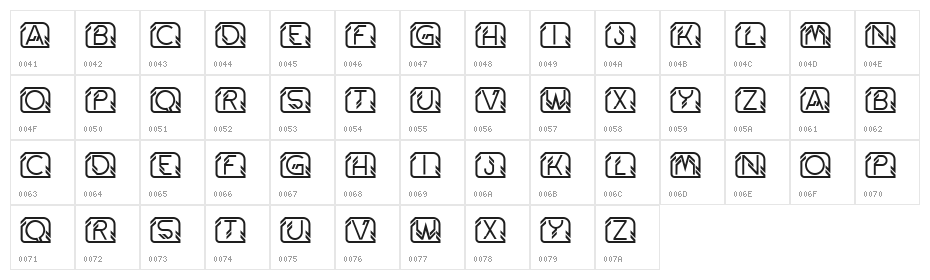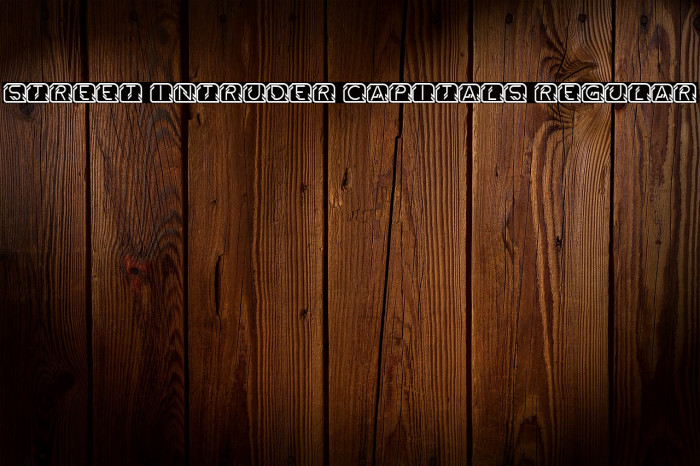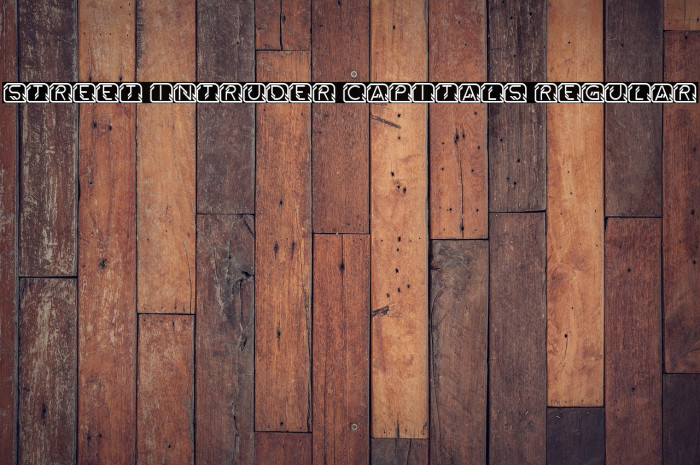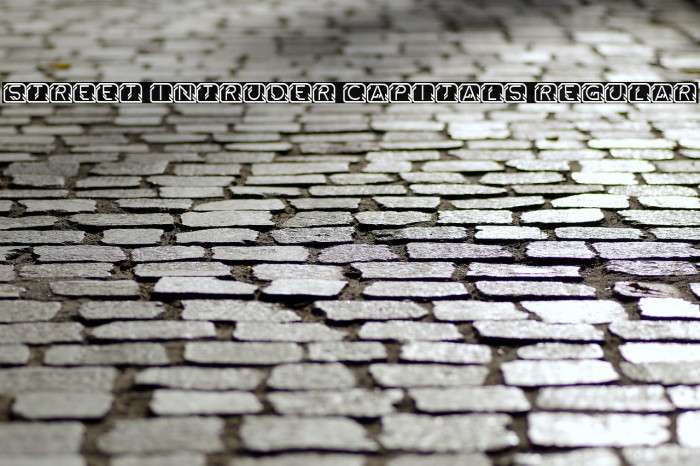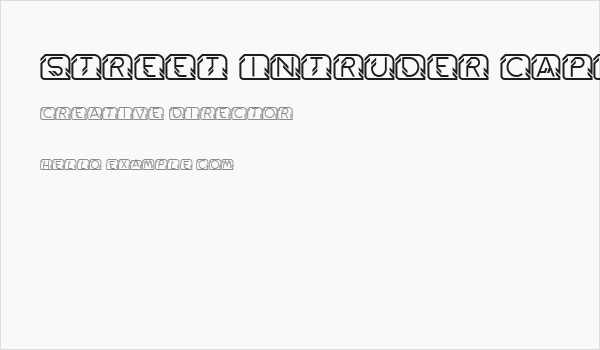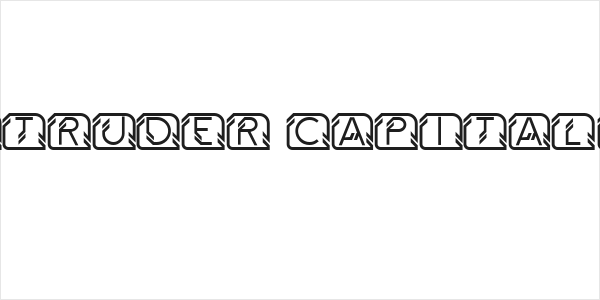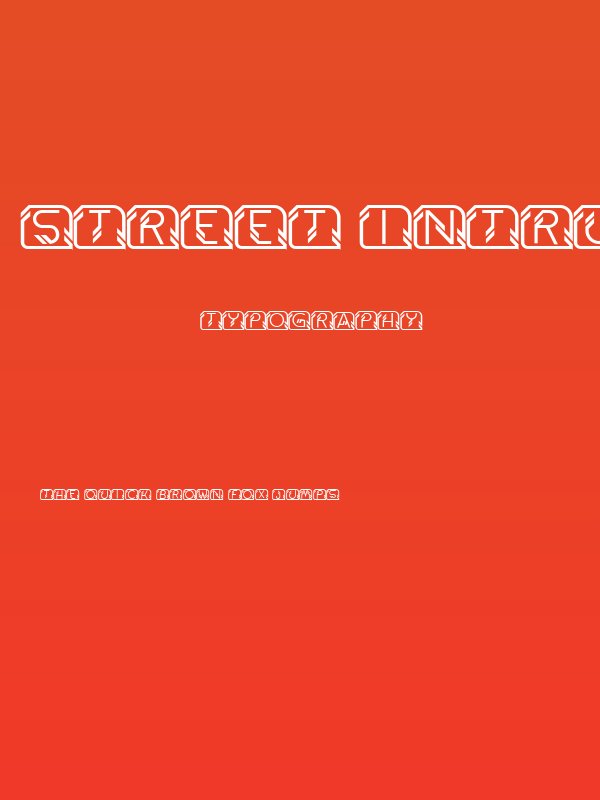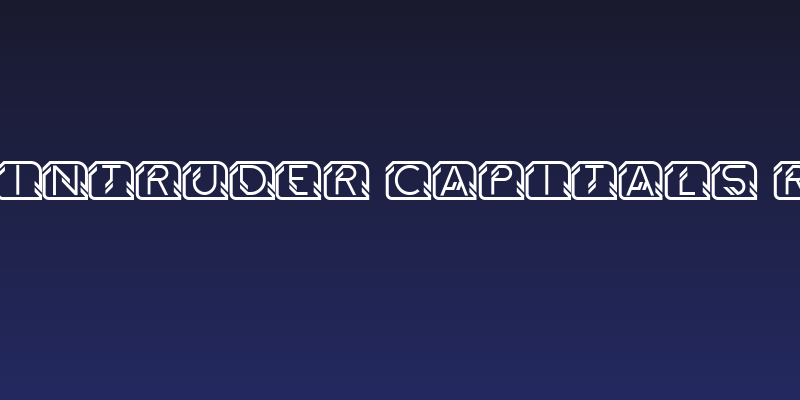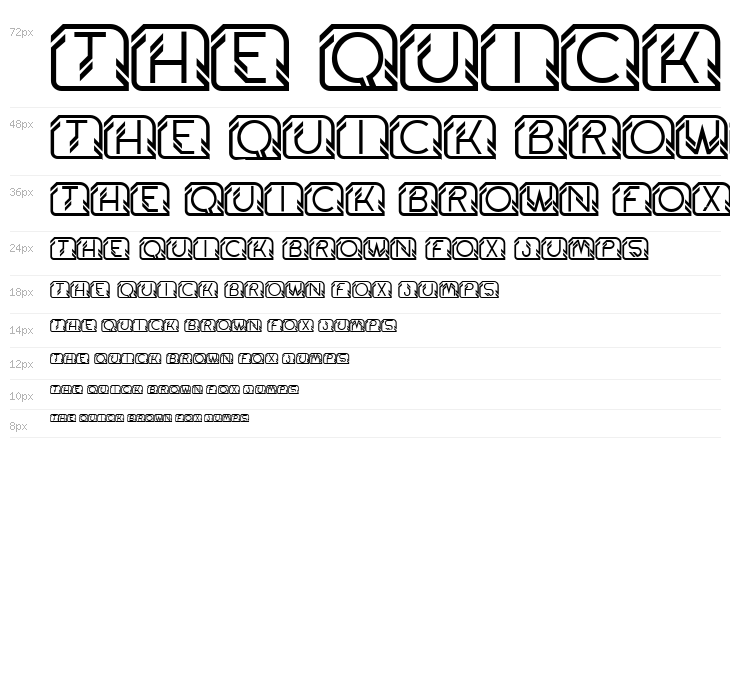
Street Intruder Capitals Regular Font
Street Intruder Capitals Regular Description
This font features a bold, geometric style with a distinct three-dimensional effect. Each character is enclosed within a blocky outline, giving it a strong, impactful presence. The design incorporates sharp angles and clean lines, creating a modern and edgy aesthetic. The font is highly decorative, making it ideal for attention-grabbing headlines or titles. Its unique structure and bold appearance make it stand out, while the consistent width of each character ensures readability. The font's style is reminiscent of urban or street art, adding a contemporary and artistic flair to any project.
| Proposed Projects | Ideal for street art-inspired designs, posters, album covers, and branding that requires a bold statement. |